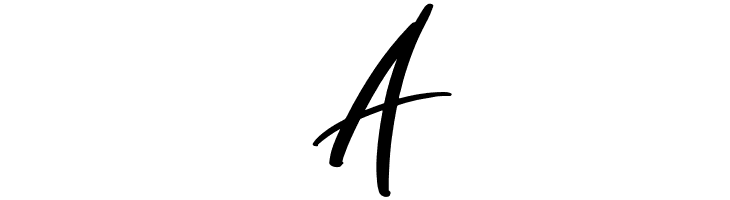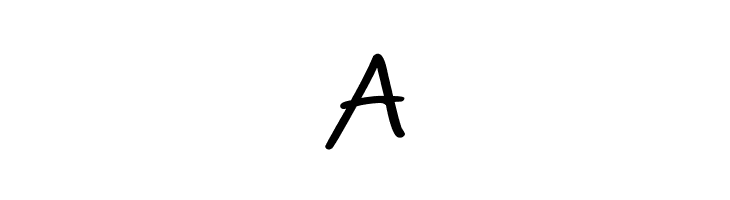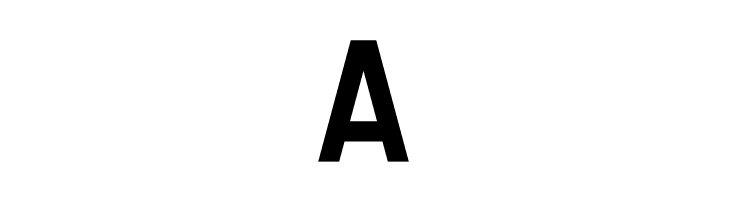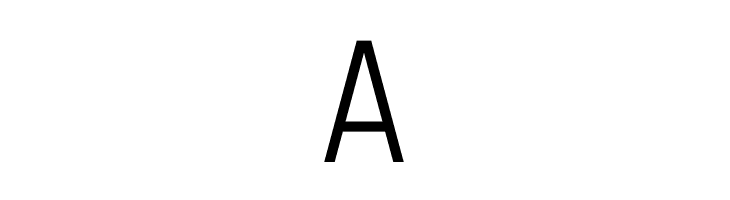
A bold, dynamic brush-style font with textured strokes.
A bold, brush-style font with dynamic strokes and a hand-painted look.
A playful, casual handwritten font with a smooth, flowing style.
A modern, light sans-serif font with a clean and minimalistic design.
A playful, handwritten font with smooth, flowing strokes and a casual style.
A bold, modern sans-serif font with geometric influences and consistent stroke weight.
A playful, hand-drawn font with rounded, bubbly characters.
A playful, rounded font with smooth curves and uniform strokes.
A playful, rounded font with bold, smooth curves and consistent spacing.
A modern, geometric font with double-line strokes and art deco influences.
A bold, italic font with geometric shapes and a dynamic, modern style.
A dynamic, brush-style script font with expressive cursive forms.
A bold, expressive script font with dynamic, textured strokes.
A bold, cursive font with elegant, flowing strokes and a modern calligraphic style.
A bold, dynamic script font with a playful, handwritten style.
A bold, brush-style font with dynamic, hand-painted strokes.
A dynamic and elegant script font with flowing, cursive letterforms.
A bold, decorative script font with flowing, interconnected letters.
A bold, playful handwritten font with thick, rounded strokes.
A dynamic, handwritten-style font with medium contrast and playful energy.
A bold, brush-style font with a dynamic and artistic appearance.
A bold, brush-style font with an energetic and artistic appearance.
A bold, rounded font with a modern and friendly style.
A fluid and elegant handwritten script with smooth, continuous strokes.
A bold, expressive handwritten font with dynamic brush strokes.
A playful, handwritten cursive font with smooth, flowing lines.
A graffiti-inspired script font with bold, angular letters and a rebellious flair.
A graceful script font with flowing, interconnected cursive letters.
A bold, graffiti-inspired font with a playful and energetic style.